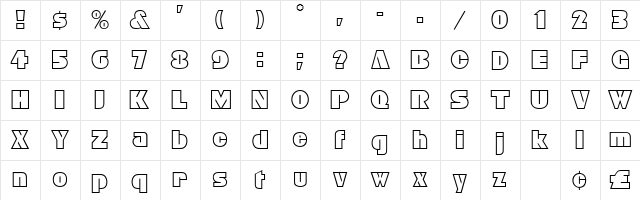
Kena Open Face Display SSi Regular
Design Context for Kena Open Face Display SSi Typeface
Kena Open Face Display SSi brings ornamental detail and strong personality to headlines and identities, where visual impact matters more than quiet functionality.
Font Pairing: Pair with a clean neutral sans-serif for body copy to let Kena Open Face Display SSi's character lead without overwhelming the composition.
Pro Tip: Treat Kena Open Face Display SSi as the centrepiece of your typographic hierarchy. One strong heading set in a decorative face can carry an entire layout.